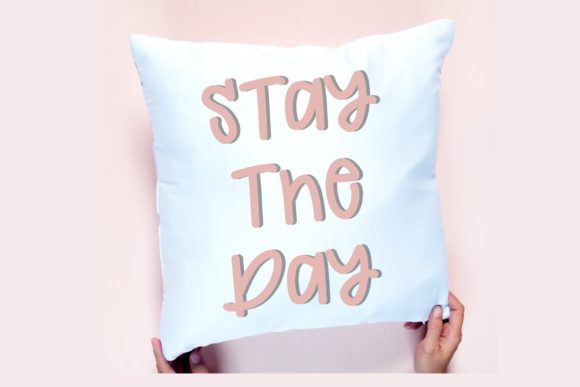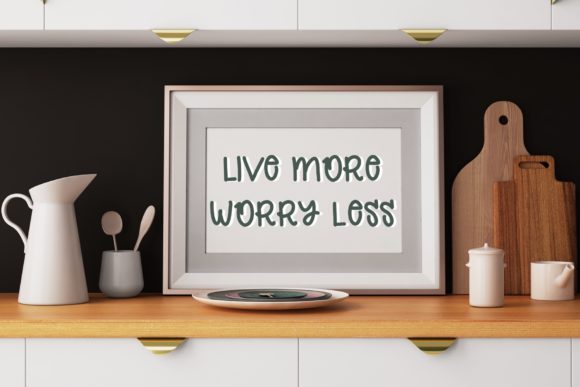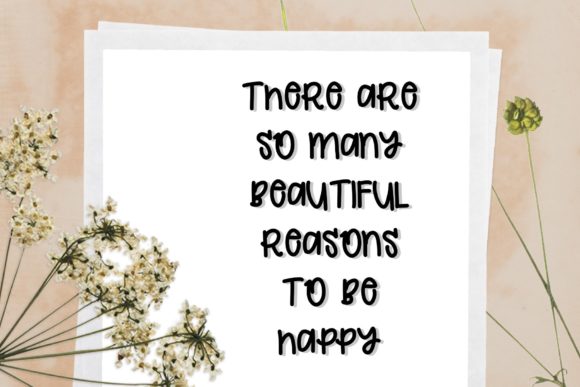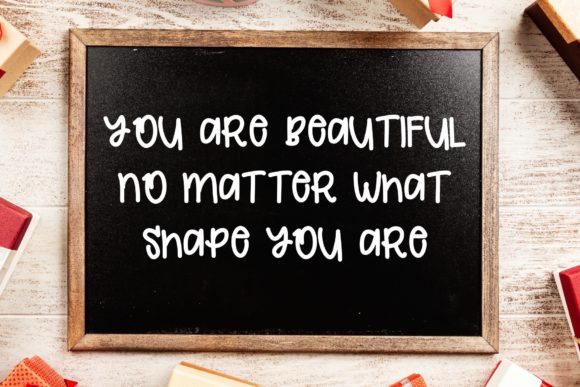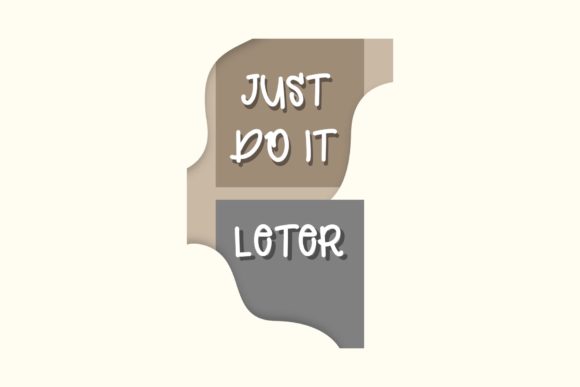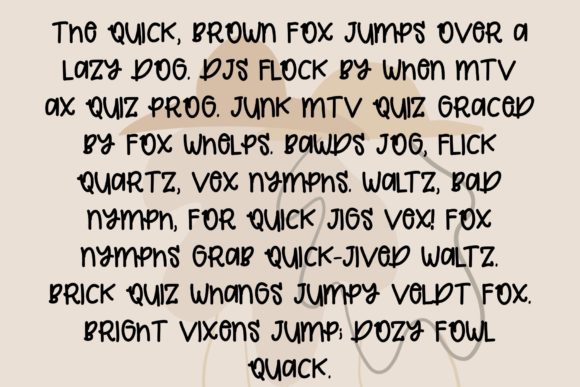
Discover the Charm of Elizabeth Font: A Sweet and Beautiful Handwritten Font
Are you a designer or crafter looking for a font that can add a touch of elegance and sophistication to your projects? Look no further than the Elizabeth font, a sweet and beautiful handwritten font that is sure to capture your heart. With its incredibly versatile style, Elizabeth font is perfect for creating spectacular designs that will leave a lasting impression.
What Makes Elizabeth Font So Special?
Elizabeth font is a unique and charming handwritten font that is designed to add a personal touch to your designs. Its sweet and beautiful style is perfect for a wide range of projects, from wedding invitations and party decorations to branding and advertising materials. The font’s versatility is one of its standout features, making it easy to use in a variety of contexts and designs.
Key Features of Elizabeth Font
- Handwritten style: Elizabeth font is a beautiful handwritten font that adds a personal touch to your designs.
- Versatile: The font’s versatile style makes it perfect for a wide range of projects and designs.
- Elegant and sophisticated: Elizabeth font’s elegant and sophisticated style is sure to impress your clients and audience.
Uses of Elizabeth Font
Elizabeth font is perfect for a wide range of projects, including:
- Wedding invitations and decorations: The font’s elegant and sophisticated style makes it perfect for wedding designs.
- Branding and advertising materials: Elizabeth font’s unique and charming style is sure to make your brand stand out.
- Party decorations and invitations: The font’s playful and whimsical style is perfect for party designs.
- Digital and print designs: Elizabeth font is perfect for both digital and print designs, including social media graphics, brochures, and more.
Tips for Using Elizabeth Font
Here are some tips for using Elizabeth font to create spectacular designs:
- Pair it with other fonts: Elizabeth font pairs well with other fonts, such as sans-serif fonts and script fonts.
- Experiment with colors: The font looks great in a variety of colors, from bold and bright to soft and pastel.
- Use it for headings and titles: Elizabeth font is perfect for headings and titles, adding a touch of elegance and sophistication to your designs.
In conclusion, Elizabeth font is a sweet and beautiful handwritten font that is sure to capture your heart. With its incredibly versatile style, it’s perfect for creating spectacular designs that will leave a lasting impression. Whether you’re a designer or crafter, Elizabeth font is a must-have font that will add a touch of elegance and sophistication to your projects.